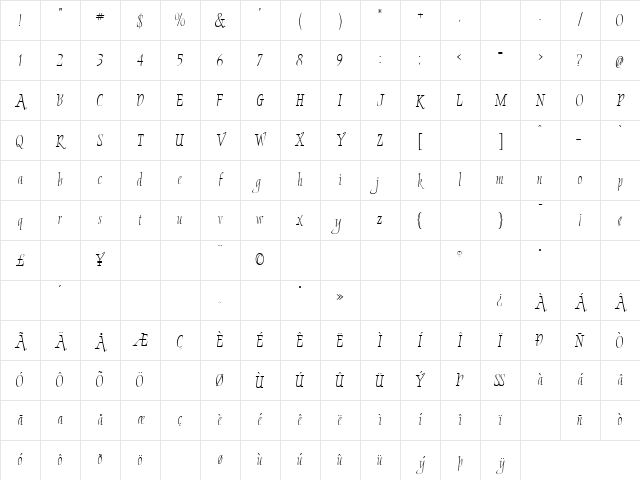
LHF David Design Regular Free Font
LHF David Design Regular
Design Context for LHF David Design
LHF David Design is a composed and adaptable typeface that performs quietly and consistently across a wide range of design contexts.